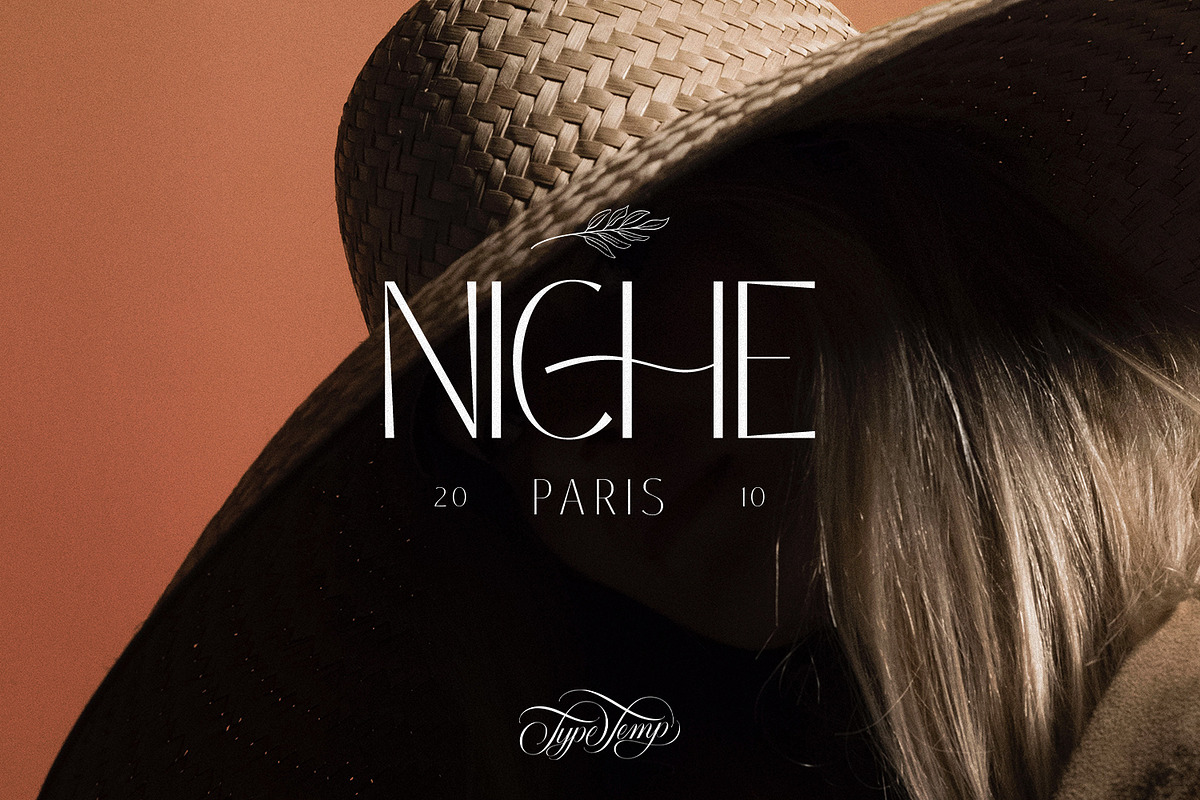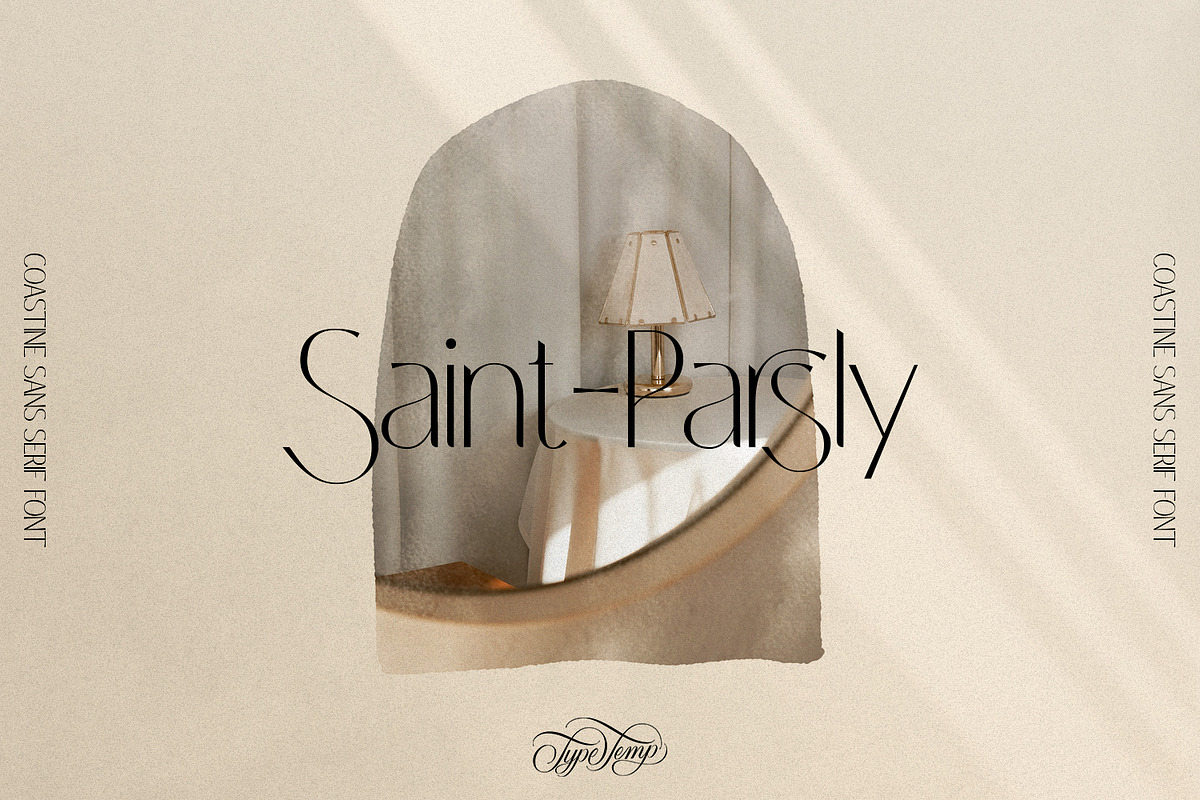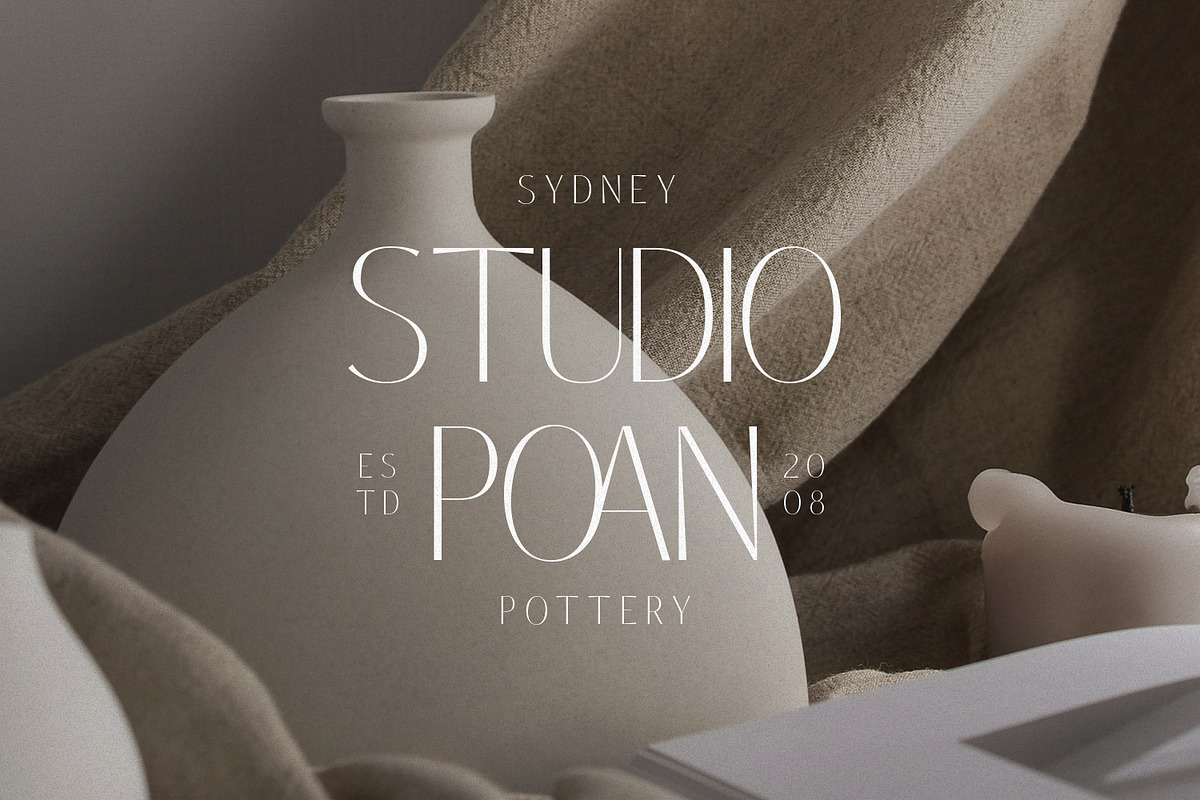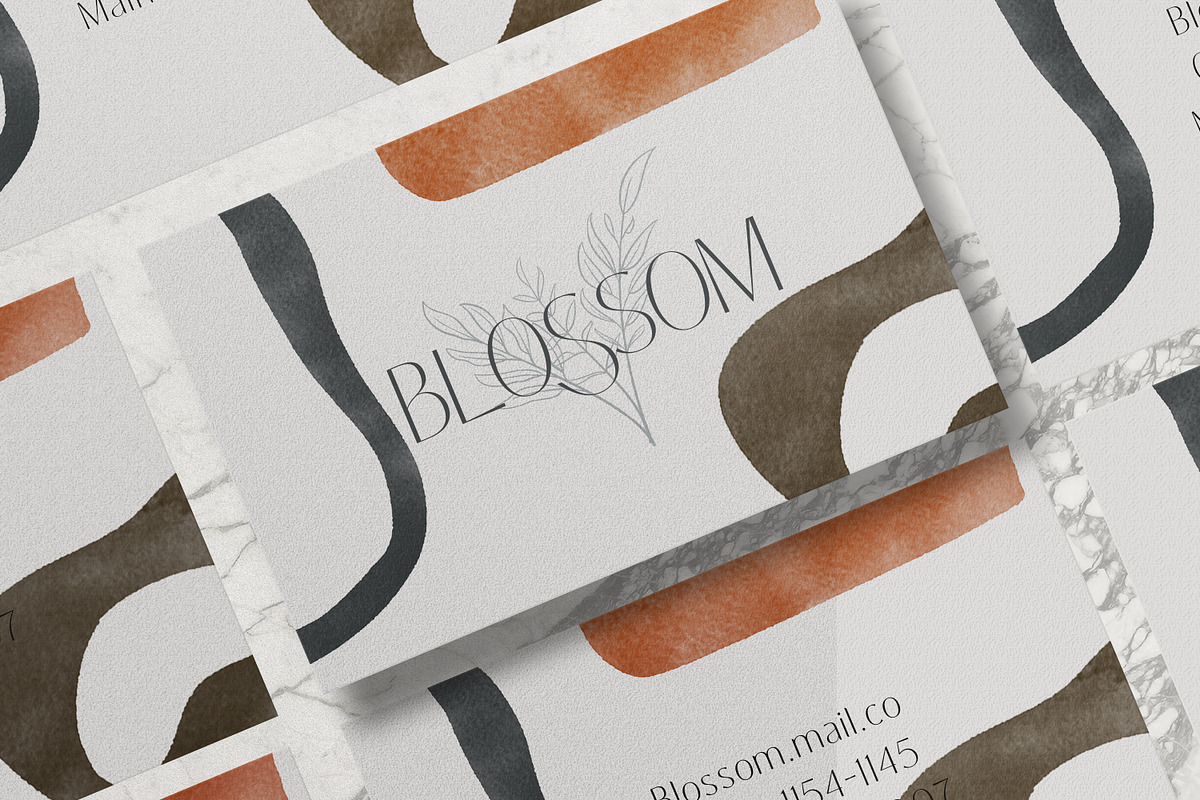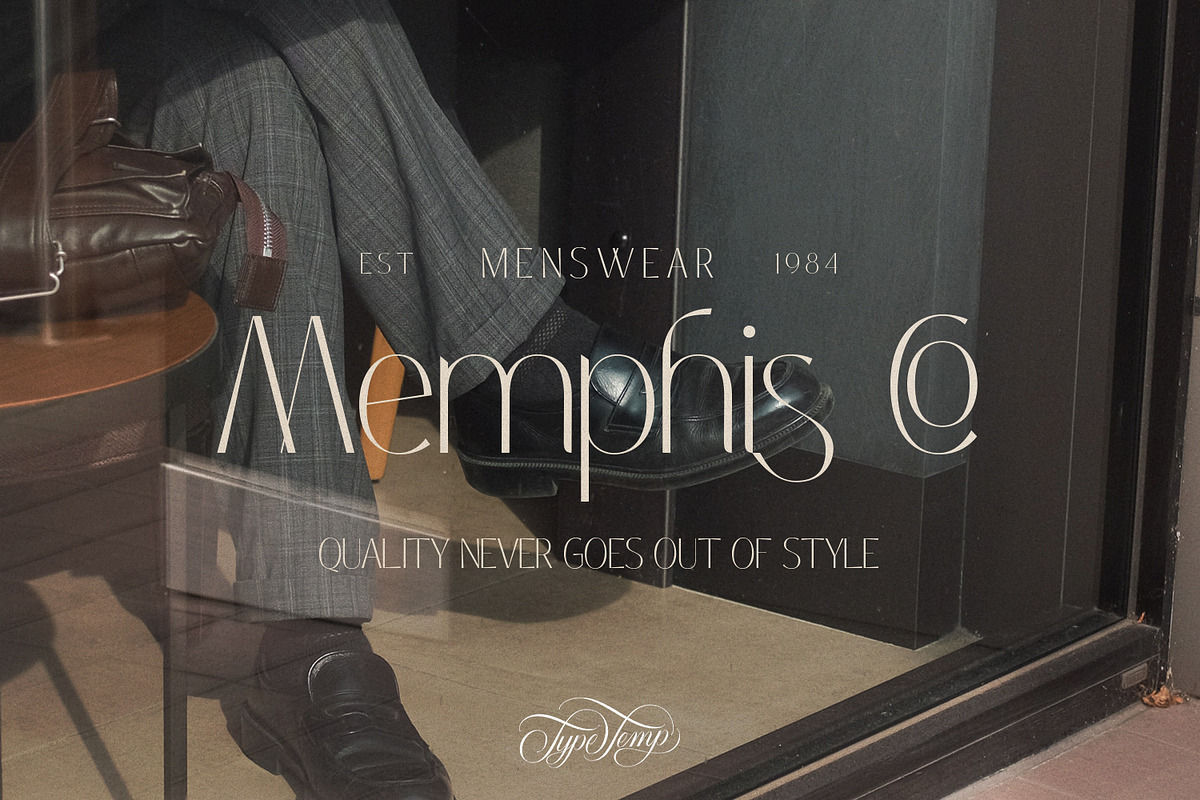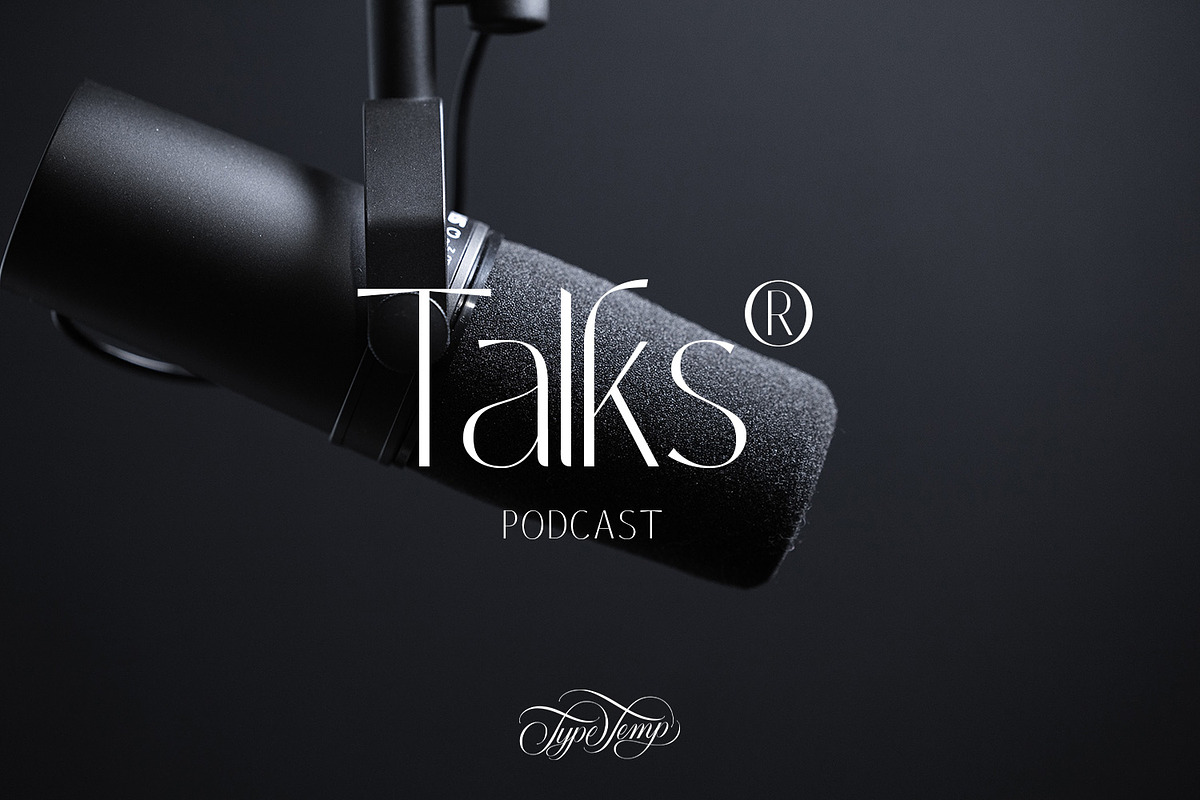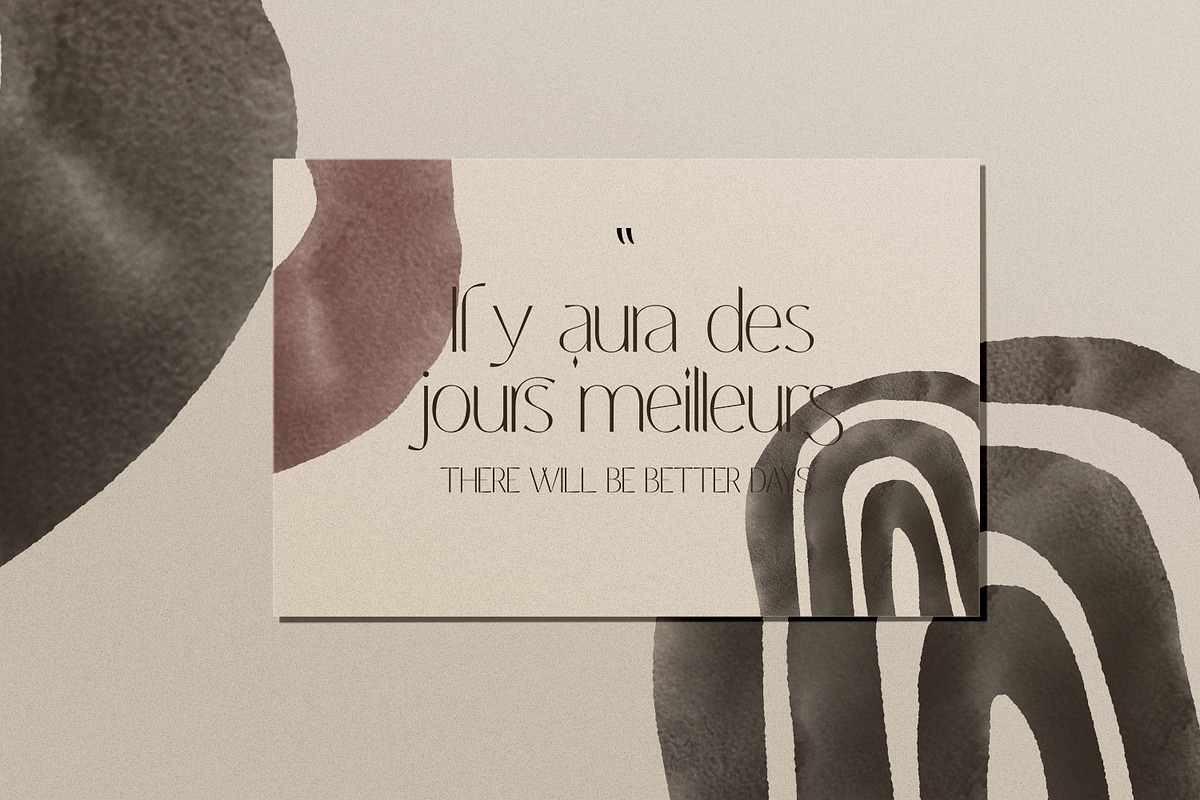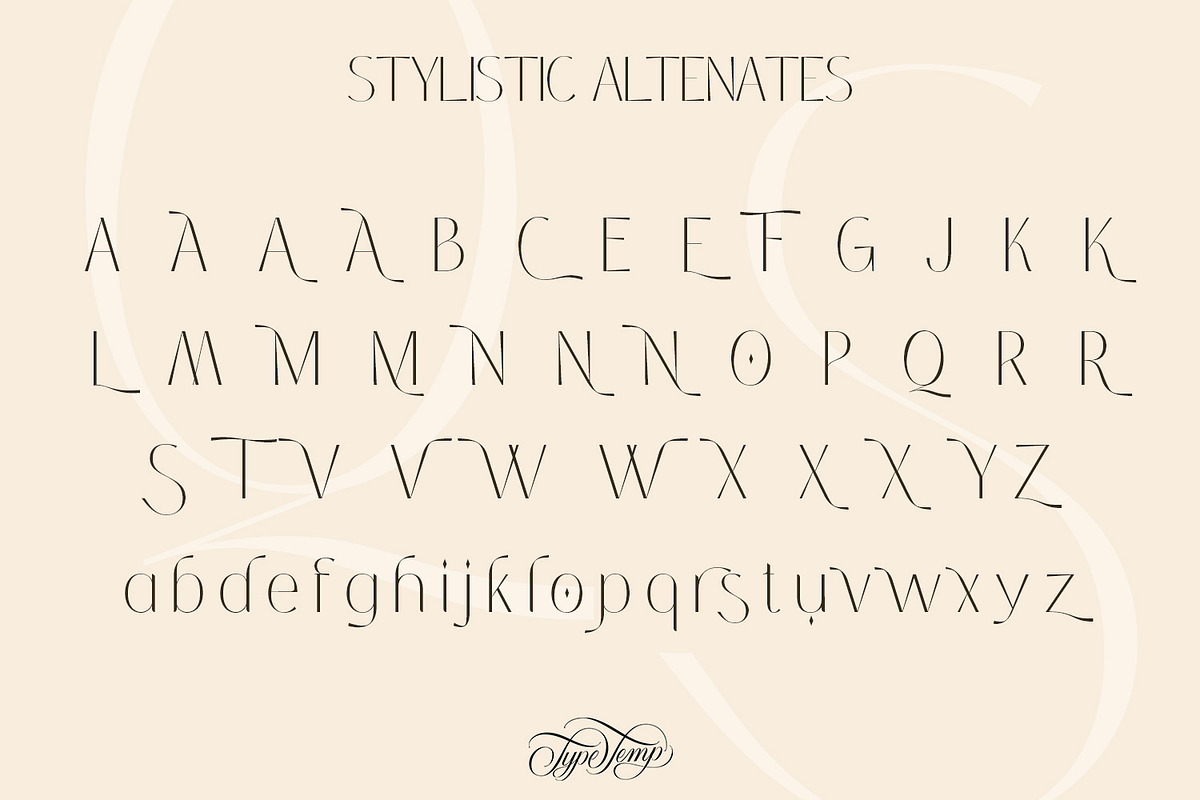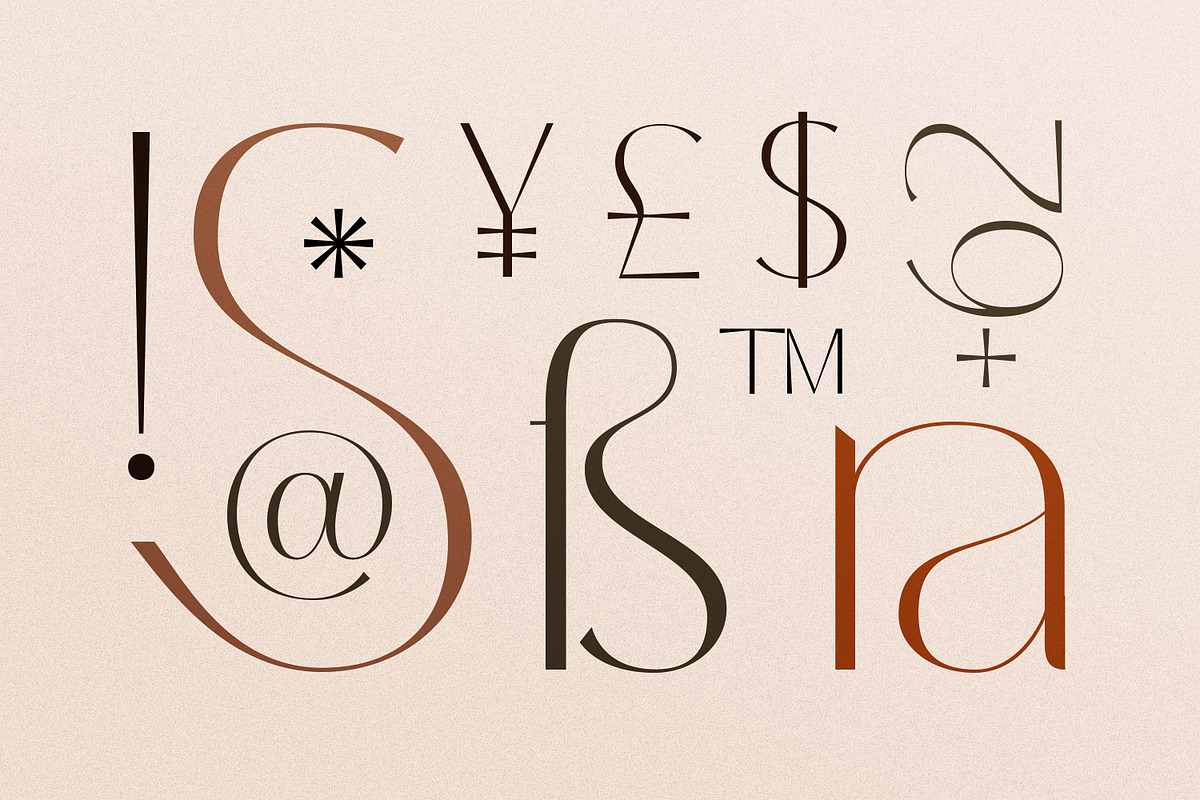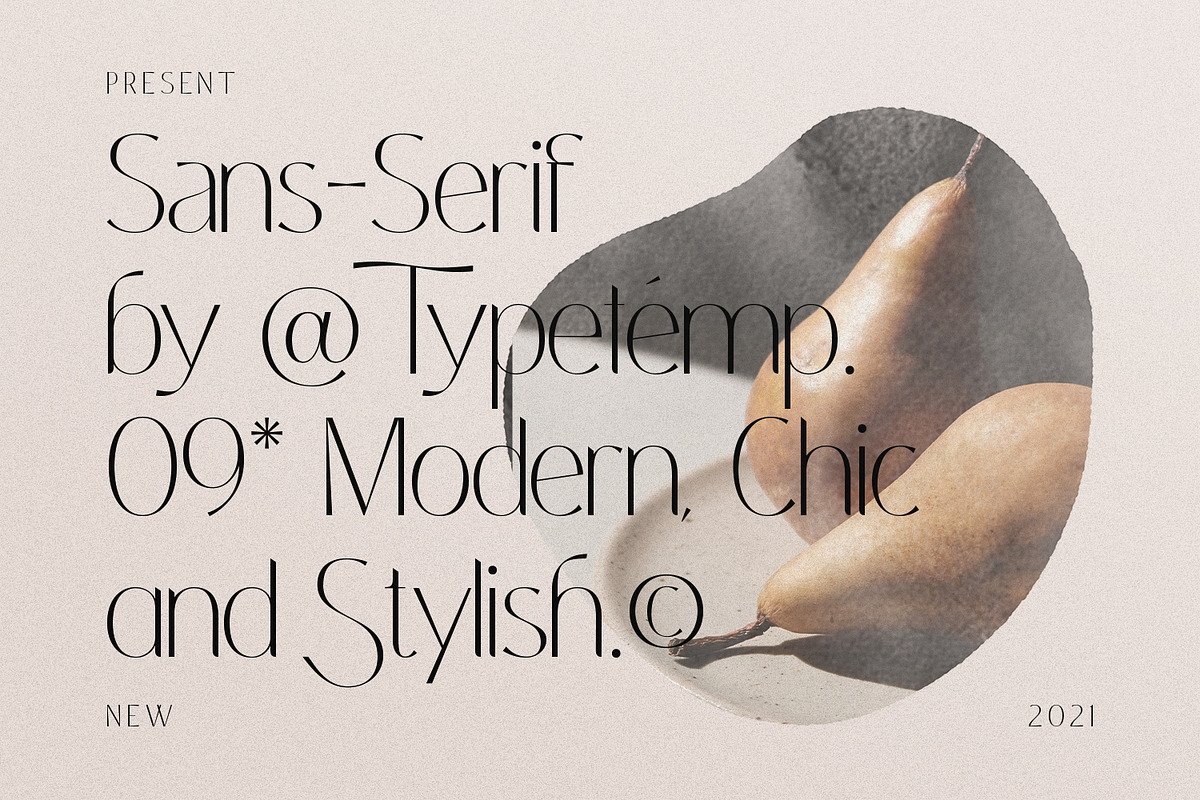
Coastine - Chic Modern Font
Coastine Chic Modern Font is Sans-Serif Font with upper and lowercase is complemented by some of the same alternatives made with love. Access your OpenType features to access the large selection of alternate letters and ligatures, select the letters you like from the large variety to get the display font you like. Perfect for editorial projects, Logo design, Clothing Branding, product packaging, magazine headers, or simply as a stylish text overlay to any background image.
- Stylistic Alternates & Ligatures